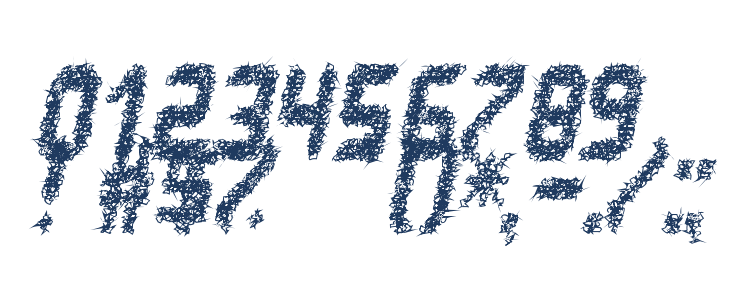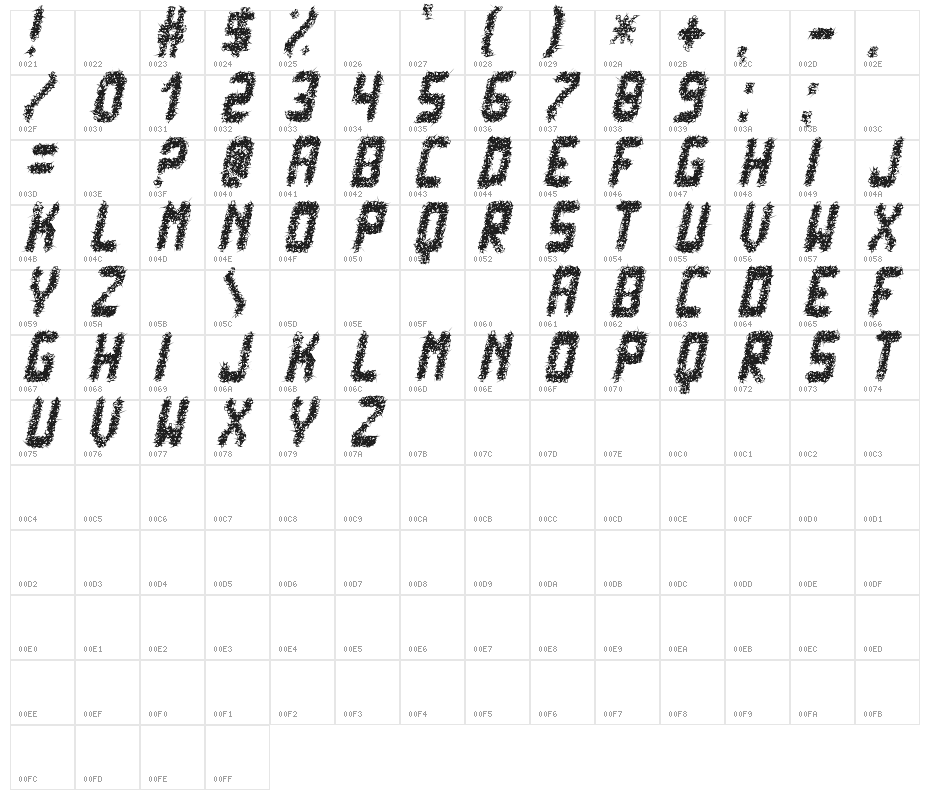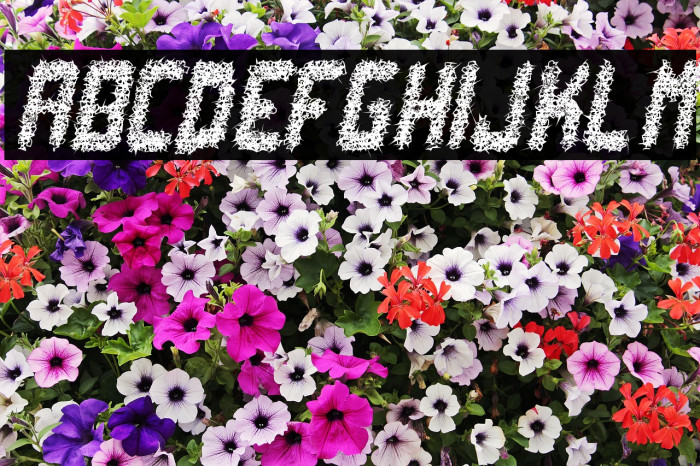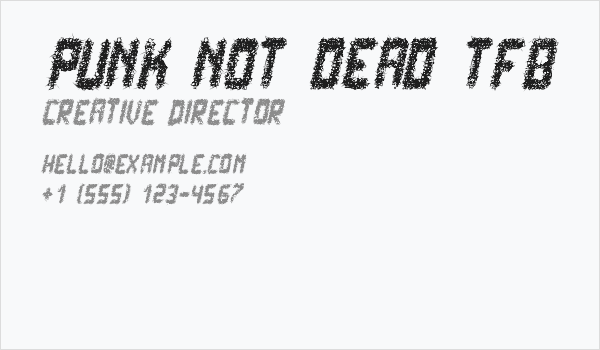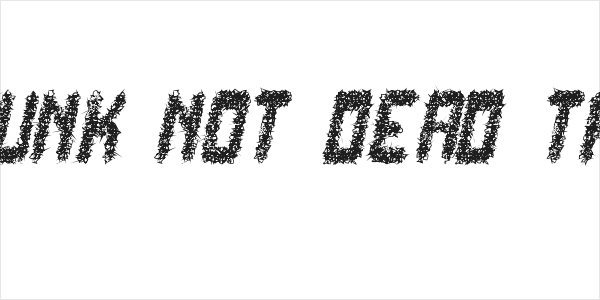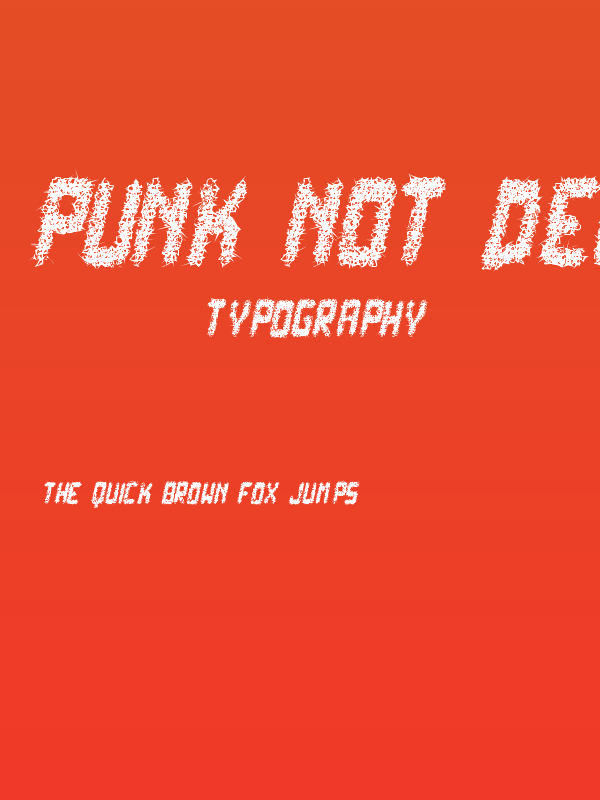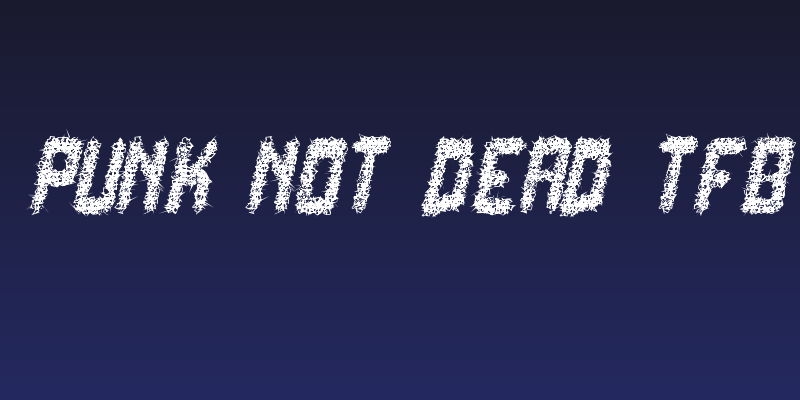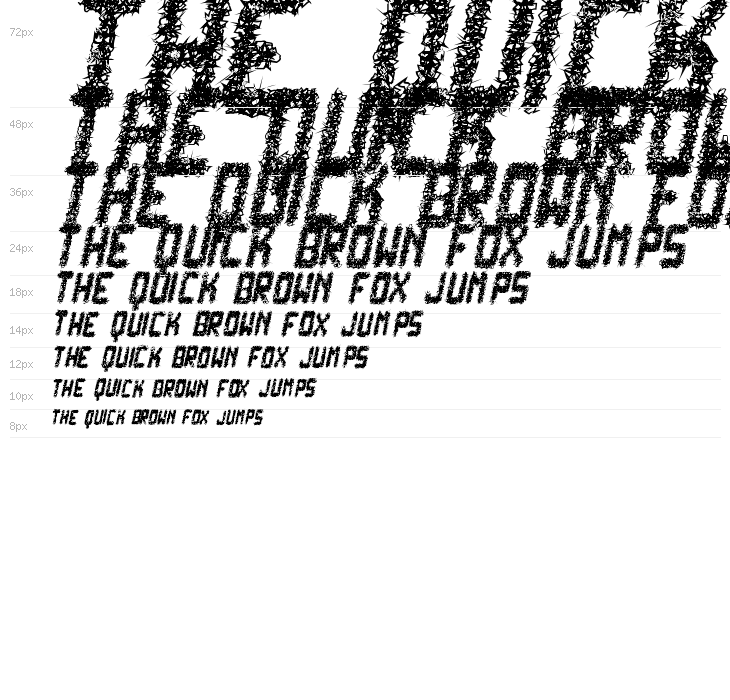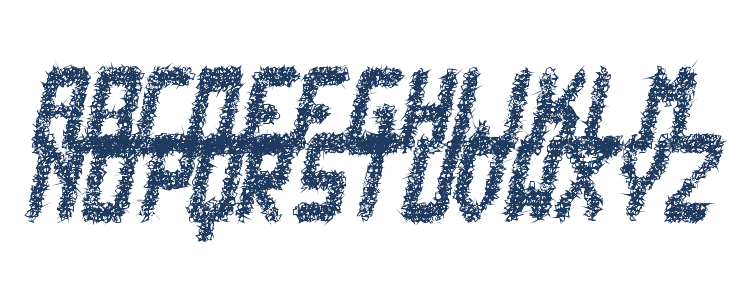
punk not dead tfb Font
punk not dead tfb Description
This font exudes a rebellious and edgy vibe, characterized by its chaotic and jagged appearance. The letters are formed with a dense cluster of irregular lines, giving them a distressed and grungy look. Each character seems to be constructed from a mass of scribbles, creating a sense of movement and energy. The uppercase and lowercase letters maintain a consistent style, while the numbers and special characters follow the same rugged aesthetic. This font is perfect for projects that aim to capture a punk or underground feel, making it ideal for music posters, album covers, or any design that requires a bold statement.
| Overall Style | Punk, Grunge, Edgy |
| Proposed Projects | Music posters, album covers, edgy branding, rebellious-themed designs. |